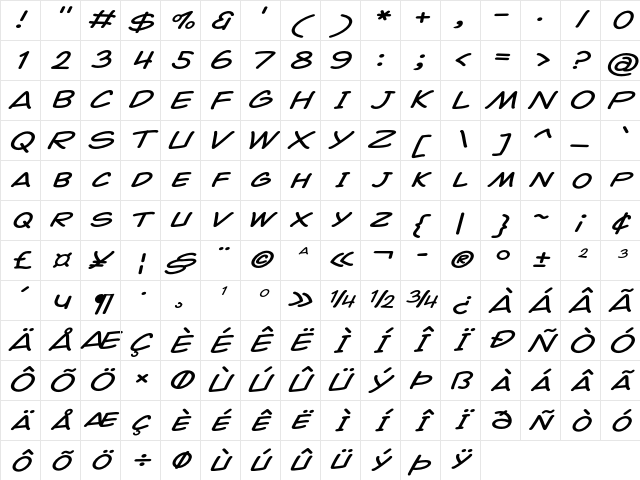
Comicopia Expanded Italic Free Font
Comicopia Expanded Italic
Style: Expanded Italic
Comicopia Family
Comicopia Expanded Italic
Complete Comicopia Expanded Italic glyph index. Displaying only characters natively supported by Comicopia Expanded Italic font.
Design Context for Comicopia
Comicopia has an approachable, lighthearted character - its loose, expressive forms are well-suited to children's content, casual branding, and fun-first design. The slanted form adds forward momentum and visual energy.
Font Pairing: Pairs well with a rounded or humanist sans for body copy, maintaining the friendly tone without relying on Comicopia to carry extended reading.
Pro Tip: Use Comicopia at larger display sizes where its expressive character can land. Pair with a clean, simple sans for body copy to maintain readability.